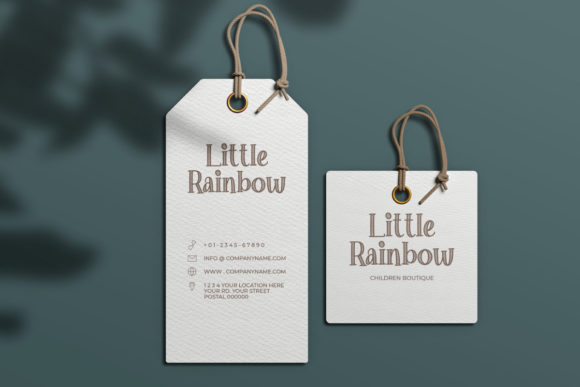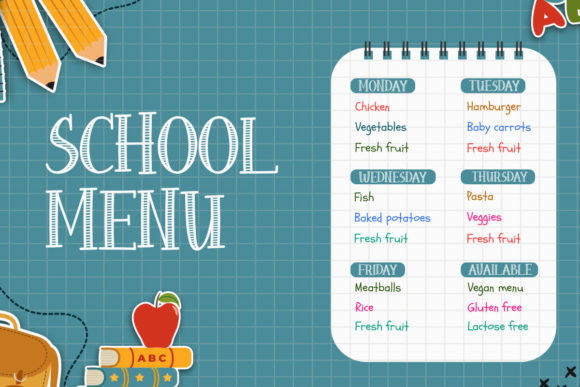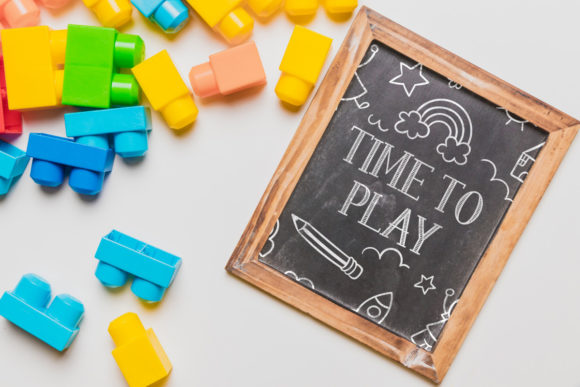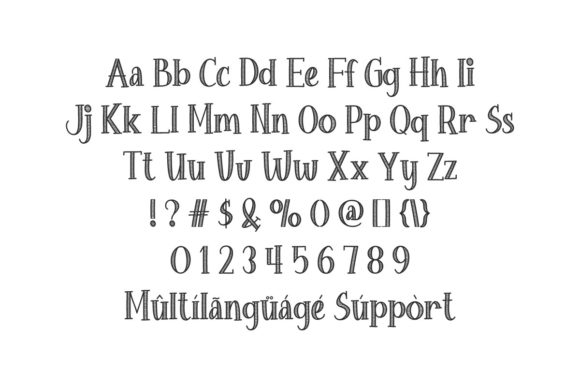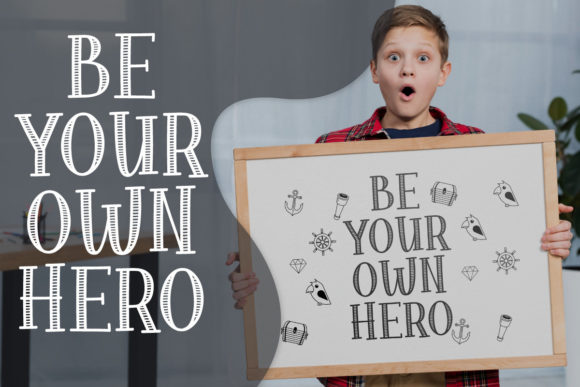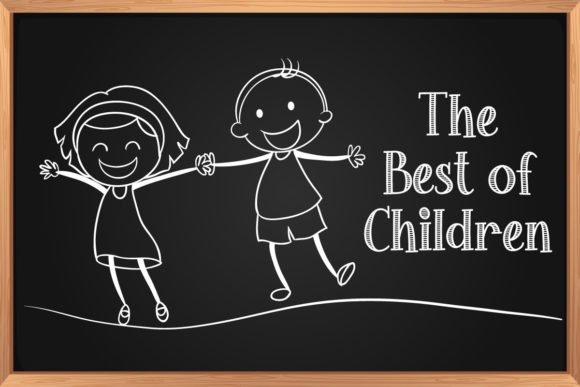
Discover the Power of Finding a Line Font: Elevate Your Designs with Confidence
Are you tired of using the same old fonts in your designs? Look no further! Finding a Line is a bold and authentic serif font that can add a touch of sophistication and elegance to your creations. In this article, we’ll explore the features and benefits of Finding a Line font, and how you can use it to take your designs to the next level.
What is Finding a Line Font?
Finding a Line is a serif font that exudes confidence and authenticity. Its bold and sturdy design makes it perfect for headlines, titles, and any other text that needs to make a statement. The font’s authentic feel also makes it suitable for body text, adding a touch of warmth and personality to your written content.
Key Features of Finding a Line Font
- Bold and Authentic Design: Finding a Line font boasts a bold and authentic design that commands attention and respect.
- Suitable for Various Design Projects: Whether you’re working on a logo, brochure, website, or social media graphics, Finding a Line font is versatile enough to fit in seamlessly.
- Easy to Read: The font’s clear and legible design ensures that your text is easy to read, even at smaller sizes.
- High-Quality Output: Finding a Line font is designed to produce high-quality output, making it perfect for print and digital applications.
Benefits of Using Finding a Line Font
So, why should you choose Finding a Line font for your next design project? Here are just a few benefits you can expect:
- Adds a Touch of Sophistication: Finding a Line font adds a level of sophistication and elegance to your designs, making them stand out from the crowd.
- Boosts Confidence: With Finding a Line font, you can create designs that exude confidence and authority, helping you to establish a strong brand identity.
- Versatile: The font’s versatility means you can use it across various design projects, from logos and brochures to websites and social media graphics.
- Easy to Pair with Other Fonts: Finding a Line font pairs well with other fonts, making it easy to create harmonious and visually appealing typography.
How to Use Finding a Line Font in Your Designs
Using Finding a Line font in your designs is easy! Here are a few tips to get you started:
- Pair it with Other Serif Fonts: Pair Finding a Line font with other serif fonts to create a cohesive and classic look.
- Use it as a Headline Font: Use Finding a Line font as a headline font to add a touch of boldness and attention-grabbing appeal.
- Experiment with Different Sizes: Experiment with different font sizes to create visual interest and hierarchy in your designs.
Finding a Line font is a powerful and versatile serif font that can elevate your designs with confidence. Its bold and authentic design makes it perfect for a wide range of design projects, from logos and brochures to websites and social media graphics. With its ease of use and high-quality output, Finding a Line font is a great addition to any designer’s toolkit. So why wait? Add Finding a Line font to your favorite creations and let yourself be amazed by the outcome generated!
Tips and Tricks for Using Finding a Line Font
Here are a few more tips and tricks to help you get the most out of Finding a Line font:
- Use it for Body Text: Finding a Line font is not just for headlines – it’s also suitable for body text, adding a touch of warmth and personality to your written content.
- Experiment with Different Colors: Experiment with different colors to find the perfect match for your brand and design.
- Don’t be Afraid to Mix and Match: Don’t be afraid to mix and match Finding a Line font with other fonts to create a unique and visually appealing typography.